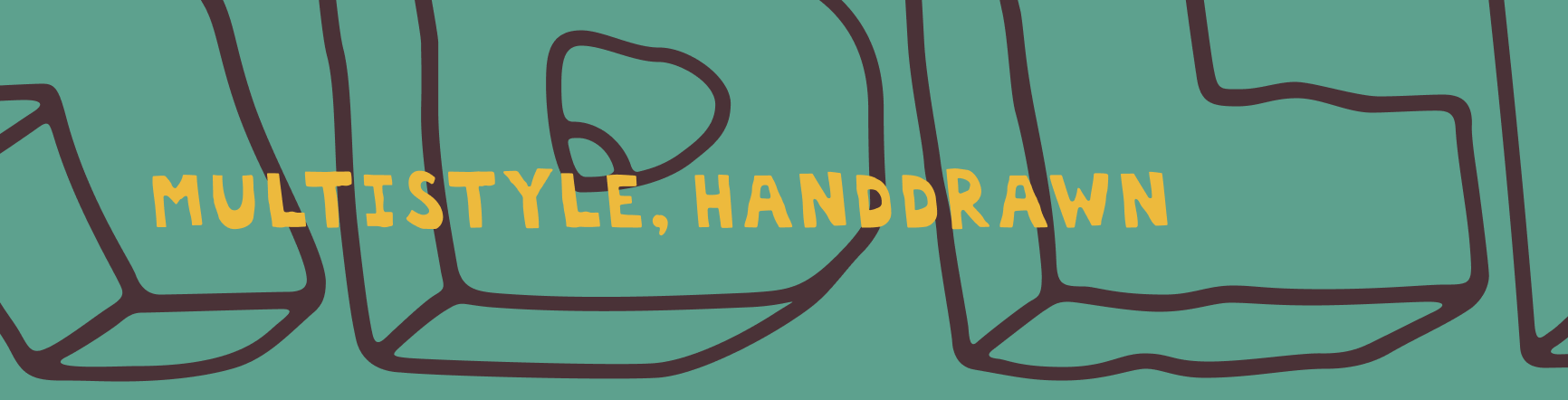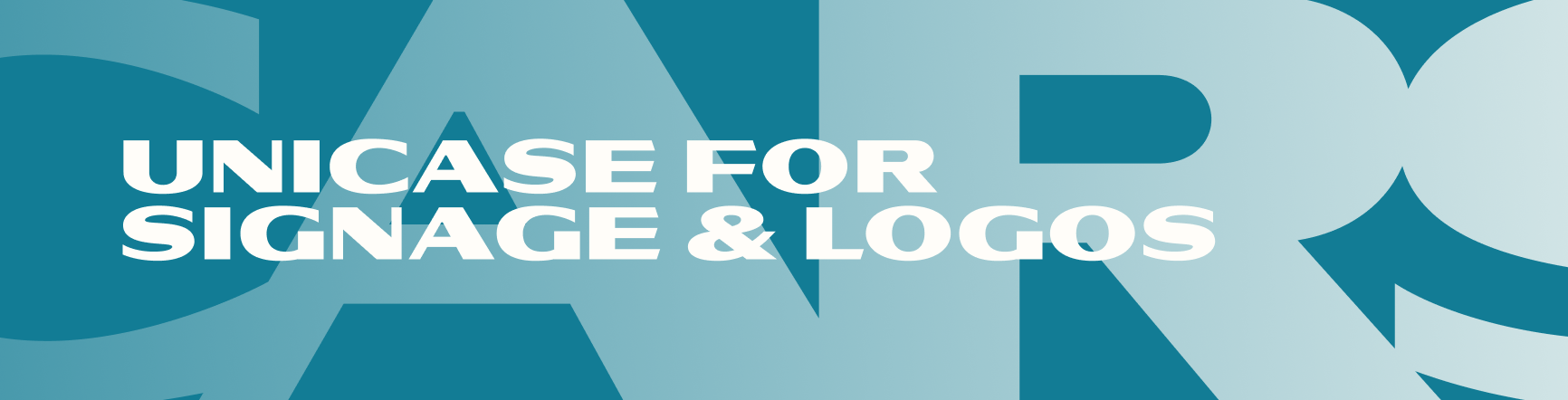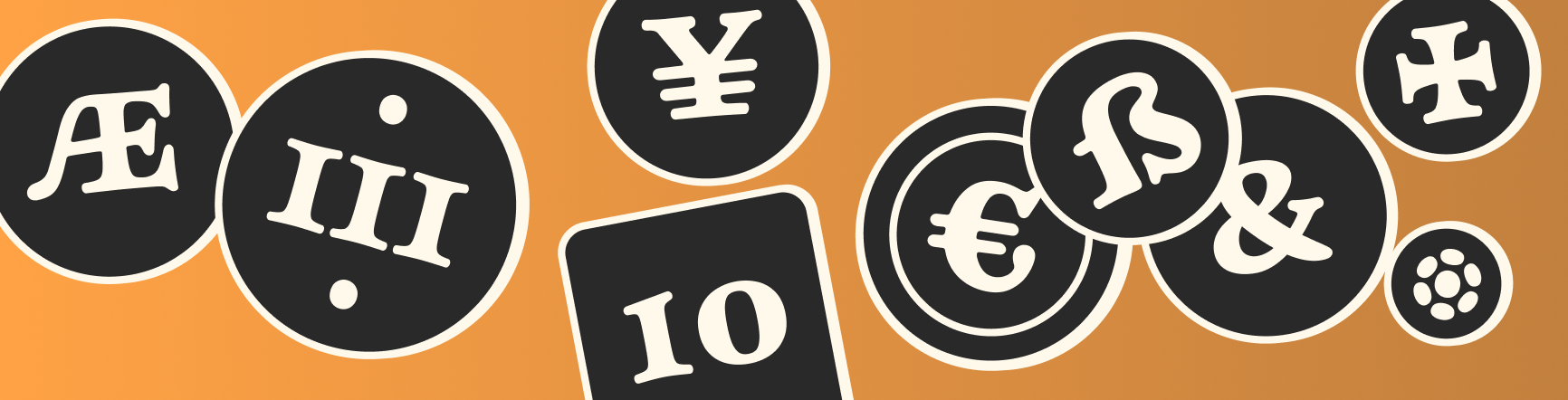
Acceptable Chair is a collaboration with Reddit user Acceptable-Chair1684 who drew the original letterforms before seeking someone to digitize them into a font. Using the combination of shapes provided it was a simple task to create the stylistic variants for different use-cases; 3d, flat, light modes and dark.
Used Cars is a all-caps unicase font that was created in a one-day exercise and is inspired by a hand-painted sign hanging at the Route 5 and 35 Auto Repair shop in Dayton, Maine. Starting with only a few letters the rest of the capitals were deduced to match the high-contrast, extra-wide, closely spaced style. That style is also great for logos—evoking legacy and technology.
Midshipman is sampled from the handwriting of John M. Funck, Master’s Mate on the U.S.S. Constitution. He was in charge of keeping the frigate’s Watch and Quarter Bill from 1808 to 1810; a detailed list of all crew and their stations in sailing and during combat. This document, made avaible by The Internet Archive, was the primary source for this typeface.
Midshipman is a connected script that also includes initial forms for lowercase words. It also includes some archaic features which come directly from the source material, including an initial ‘long s’ and the lack of distinction between Capitals ‘I’ and ‘J.’
Flamig Farm in West Simsbury, Connecticut, is famous for their produce, friendly farm animals, as well as an immense artpiece on their barn that features an all caps “EGGS,” reversed. The conspicous, columnar, capitals persist due to the clever design choice to mirror the word. This allows it to be an artpiece, rather than a road sign with its own legal requirements.
This font pays homage to that locally historic design choice by including a reversed style to recreate the iconic look, alongside an unreversed style for normal text.
Numis was born out of a coin collecting hobby. A quick survey of coins from the late medieval to modern periods to today led to this unicase design. The rounded corners and smoothed edges are meant to evoke a the slightly worn letterfaces found on old coins; a process that tends to bolden the text before being rubbed away completely.